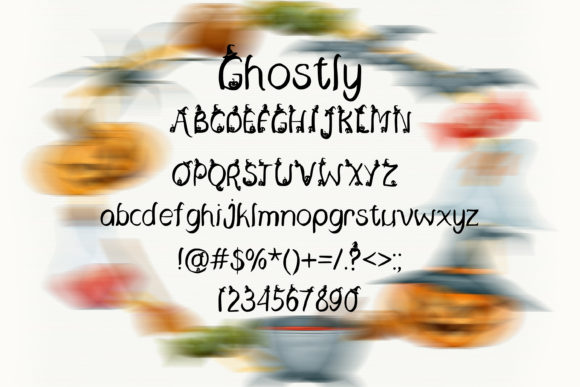
Introducing Ghostly Font: The Spookiest Handwritten Font for Your Halloween Projects
Are you looking for a font that will add a touch of spookiness to your Halloween projects? Look no further than Ghostly Font! This fun handwritten font features unique characters with hats that will make your designs stand out. In this article, we’ll take a closer look at Ghostly Font and explore its features, benefits, and uses.
What is Ghostly Font?
Ghostly Font is a handwritten font designed specifically for Halloween-themed projects. Its unique characters, complete with hats, give it a playful and spooky vibe that’s perfect for the holiday. The font is designed to be fun and engaging, making it ideal for use in a variety of projects, from party invitations to social media graphics.
Key Features of Ghostly Font
- Unique Characters: Ghostly Font features unique characters that are sure to add a touch of personality to your designs.
- Hats and Accessories: Each character comes with a hat or accessory, adding an extra layer of whimsy and fun to the font.
- Handwritten Style: The font has a handwritten style that gives it a personal and playful feel.
- Halloween-themed: The font is designed specifically for Halloween projects, making it perfect for the spookiest time of the year.
Benefits of Using Ghostly Font
So why choose Ghostly Font for your Halloween projects? Here are just a few benefits of using this fun and spooky font:
- Adds a Touch of Whimsy: Ghostly Font adds a touch of whimsy and fun to your designs, making them stand out from the crowd.
- Perfect for Halloween: The font is designed specifically for Halloween, making it the perfect choice for party invitations, social media graphics, and other holiday-themed projects.
- Versatile: The font can be used in a variety of projects, from digital graphics to print materials.
Uses for Ghostly Font
Ghostly Font is a versatile font that can be used in a variety of projects, including:
- Party Invitations: Create spooky and fun party invitations that will set the tone for your Halloween celebration.
- Social Media Graphics: Use Ghostly Font to create eye-catching social media graphics that will grab the attention of your followers.
- T-Shirts and Mugs: Create custom t-shirts and mugs with Ghostly Font for a unique and spooky gift.
- Halloween Cards: Design spooky and fun Halloween cards for friends and family.
Tips for Using Ghostly Font
Here are a few tips for using Ghostly Font in your projects:
- Experiment with Colors: Try pairing Ghostly Font with different colors to create a unique and eye-catching design.
- Use with Images: Use Ghostly Font with images of ghosts, bats, and other Halloween-themed graphics to create a spooky and fun design.
- Mix with Other Fonts: Experiment with mixing Ghostly Font with other fonts to create a unique and interesting design.
Ghostly Font is a fun and spooky handwritten font that’s perfect for Halloween projects. Its unique characters, complete with hats, add a touch of whimsy and fun to any design. With its ease of use and versatility, Ghostly Font is a great choice for designers and crafters looking to add a touch of spookiness to their projects. So why wait? Download Ghostly Font today and start creating your own spooky and fun Halloween designs!